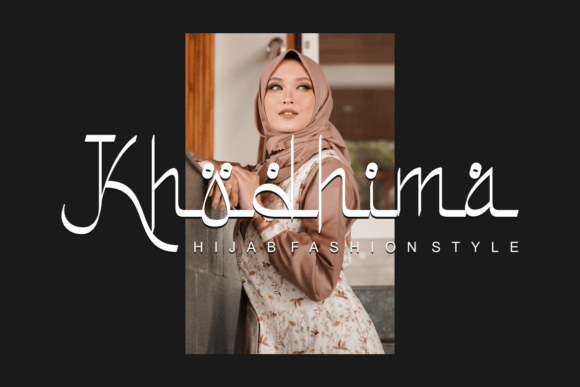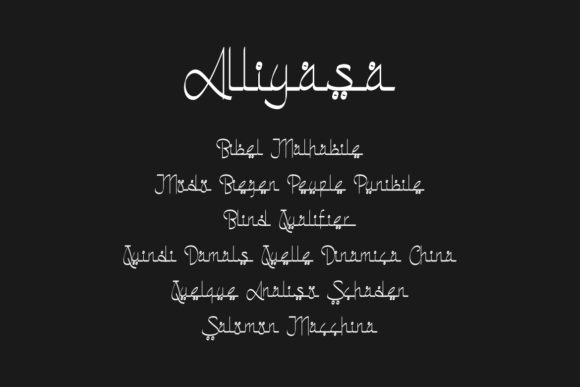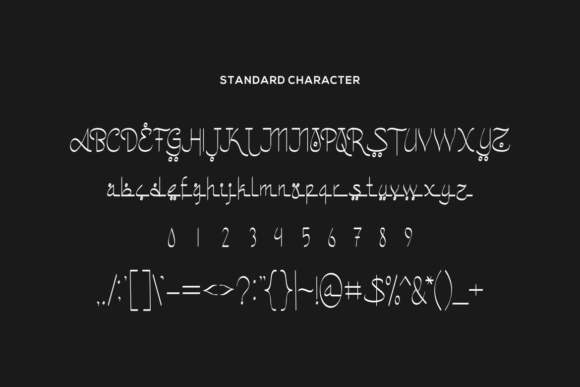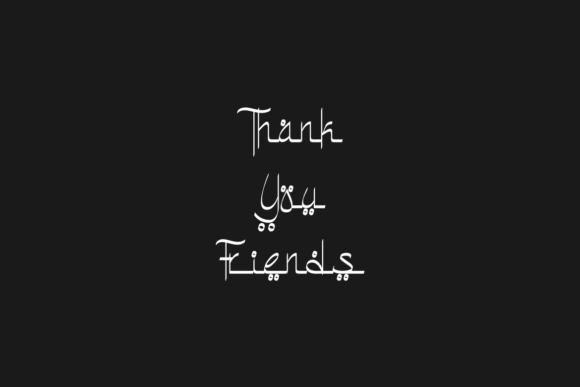
Introducing Alliyasa: The Elegant Arabic-Style Display Font
In the world of typography, fonts play a crucial role in conveying the tone and personality of a brand or design. For designers and crafters looking to add a touch of sophistication and cultural richness to their work, Alliyasa is an exciting new font that combines traditional Arabic elegance with modern flair.
What is Alliyasa?
Alliyasa is a cool, Arabic-style display font that boasts intricate, flowing letterforms that evoke a sense of cultural heritage. This stunning font is perfect for designers seeking to create unique branding, striking posters, and artistic projects that demand attention. With Alliyasa, you can elevate your designs to new heights and add a touch of sophistication to your work.
The Inspiration Behind Alliyasa
The inspiration behind Alliyasa lies in the rich cultural heritage of Arabic typography. The font’s design draws from traditional Arabic calligraphy, with its intricate and flowing letterforms that reflect the beauty and elegance of the Arabic language. However, Alliyasa also incorporates contemporary elements, making it a perfect blend of traditional and modern styles.
Key Features of Alliyasa
So, what makes Alliyasa stand out from other fonts? Here are some of its key features:
- Intricate letterforms: Alliyasa’s letterforms are intricately designed, with flowing lines and curves that evoke a sense of cultural richness.
- Arabic-style elegance: The font’s design draws from traditional Arabic calligraphy, giving it a unique and elegant feel.
- Contemporary flair: Alliyasa also incorporates modern elements, making it perfect for contemporary designs.
- Display font: Alliyasa is a display font, making it perfect for headlines, titles, and other attention-grabbing elements.
Use Cases for Alliyasa
Alliyasa is a versatile font that can be used in a variety of design projects. Here are some use cases where Alliyasa shines:
- Branding: Use Alliyasa to create unique and memorable brand identities that reflect your brand’s personality and values.
- Posters: Add a touch of elegance to your posters with Alliyasa’s intricate letterforms and flowing lines.
- Artistic projects: Alliyasa is perfect for artistic projects that demand attention and sophistication.
- Packaging design: Use Alliyasa to create eye-catching packaging designs that stand out on store shelves.
Tips for Using Alliyasa
Here are some tips for using Alliyasa effectively in your designs:
- Use it sparingly: Alliyasa is a display font, so use it sparingly to create emphasis and attention.
- Pair it with simple fonts: Pair Alliyasa with simple fonts to create contrast and visual interest.
- Experiment with colors: Alliyasa looks stunning in a variety of colors, so experiment with different colors to find the one that works best for your design.
In conclusion, Alliyasa is a stunning Arabic-style display font that combines traditional elegance with contemporary flair. With its intricate letterforms and flowing lines, Alliyasa is perfect for designers and crafters looking to add a touch of sophistication and cultural richness to their work. Whether you’re creating branding, posters, or artistic projects, Alliyasa is sure to elevate your designs to new heights.